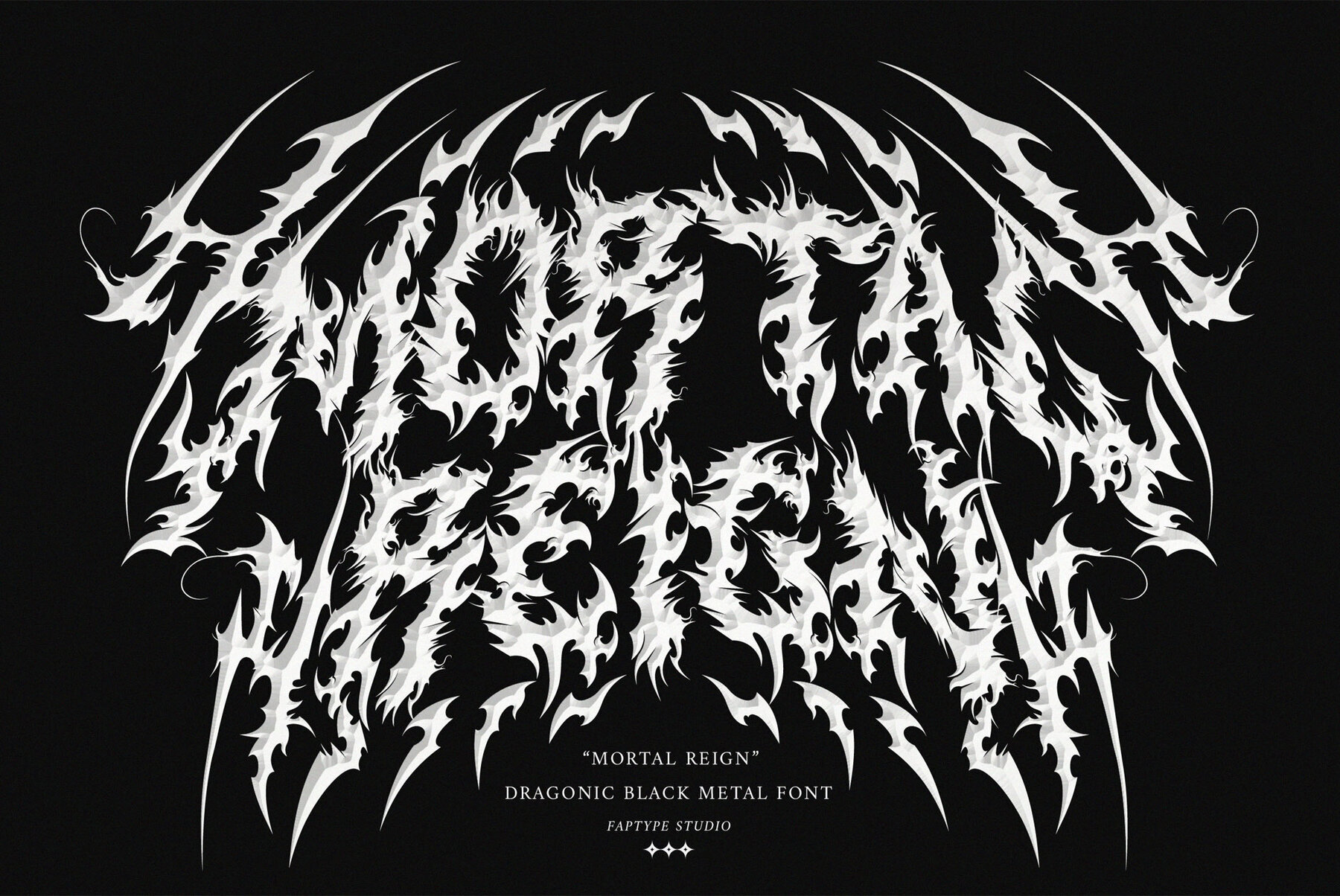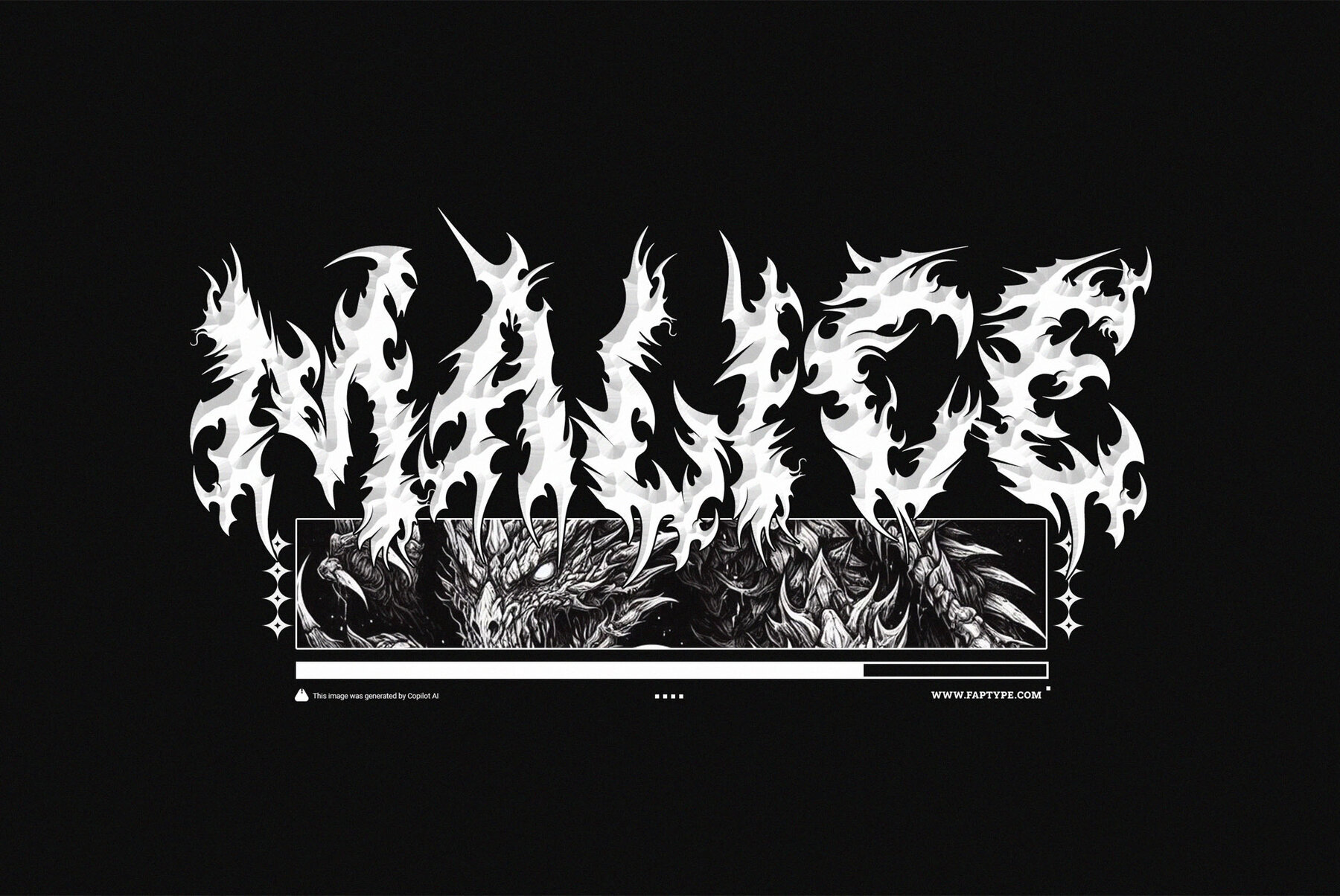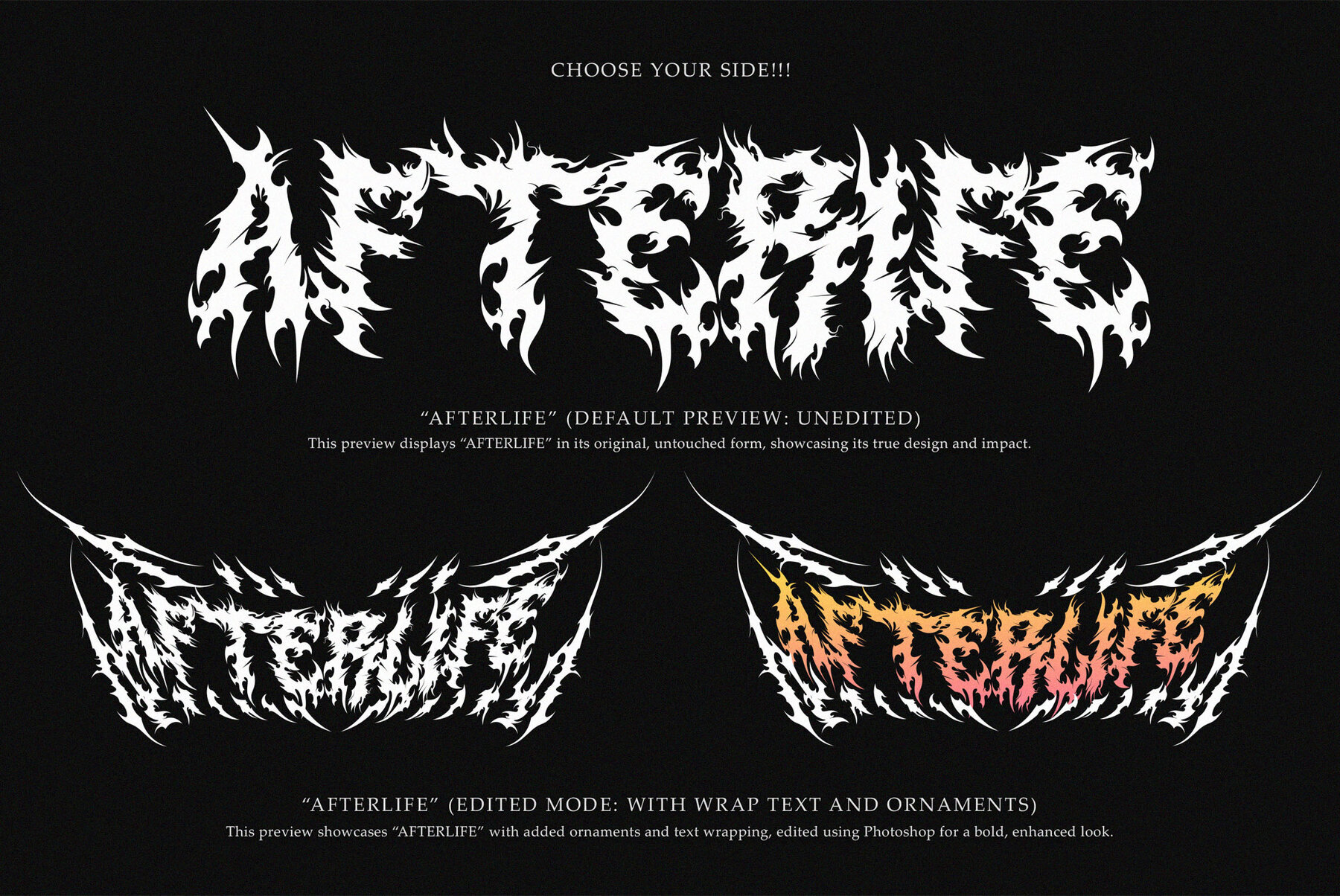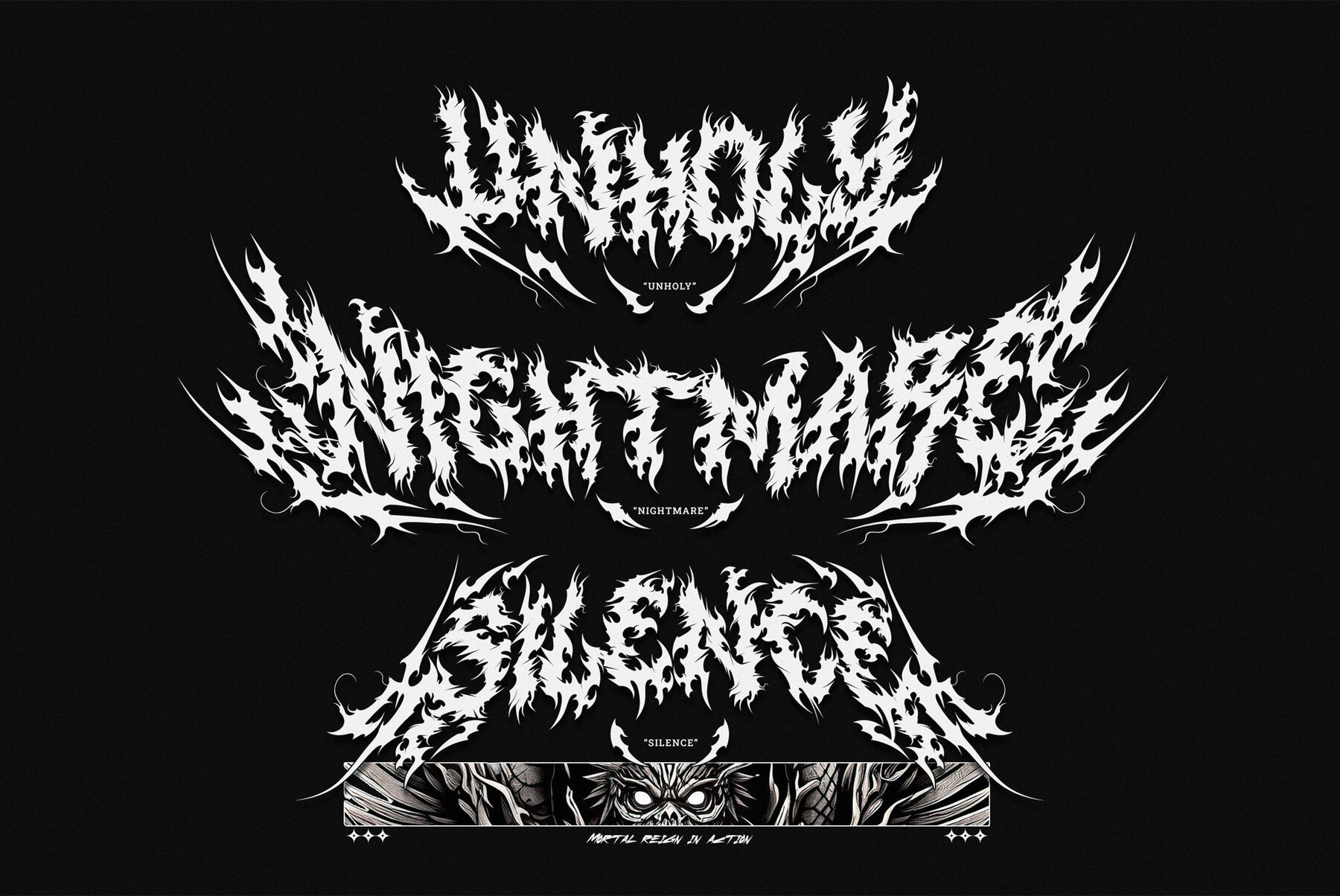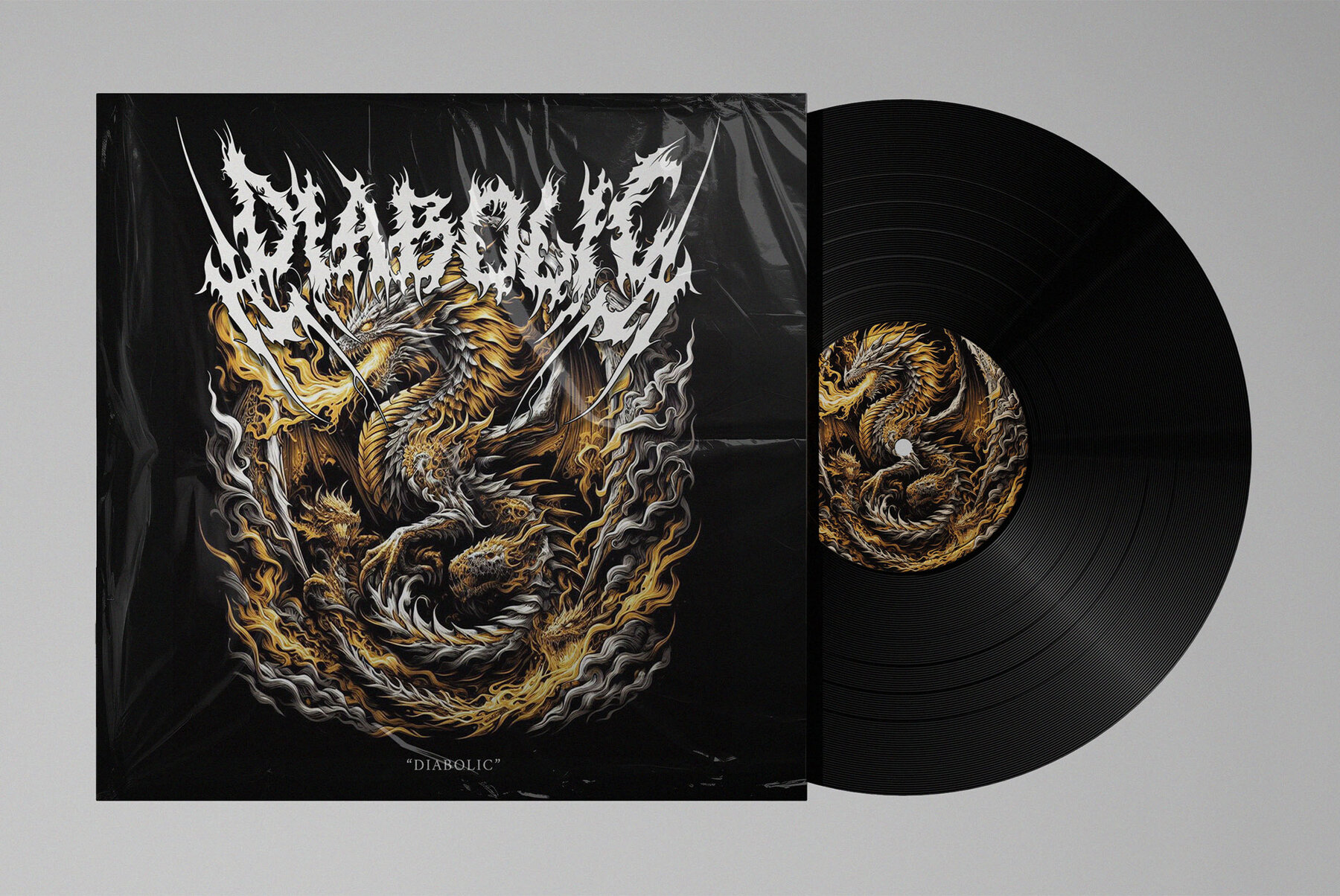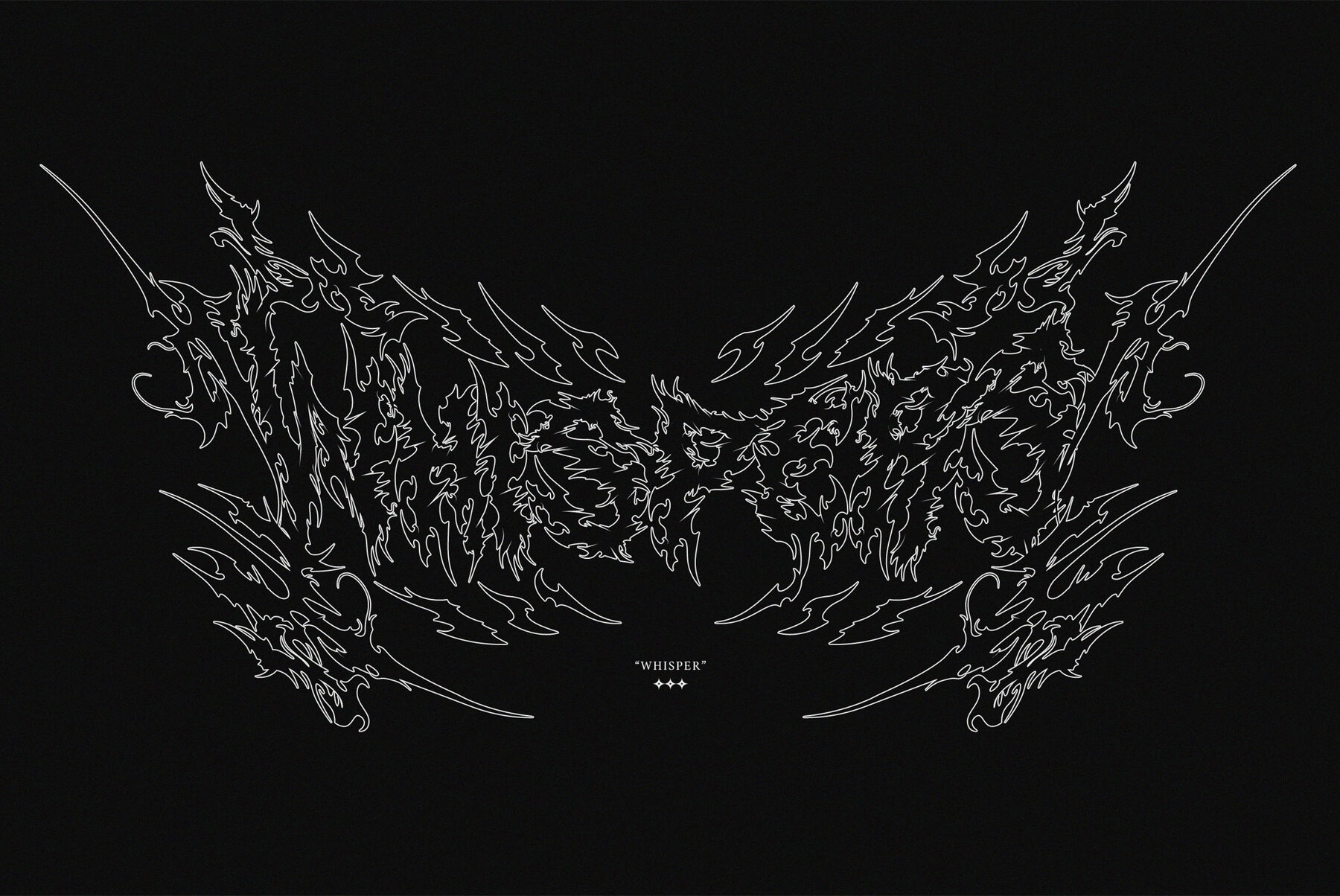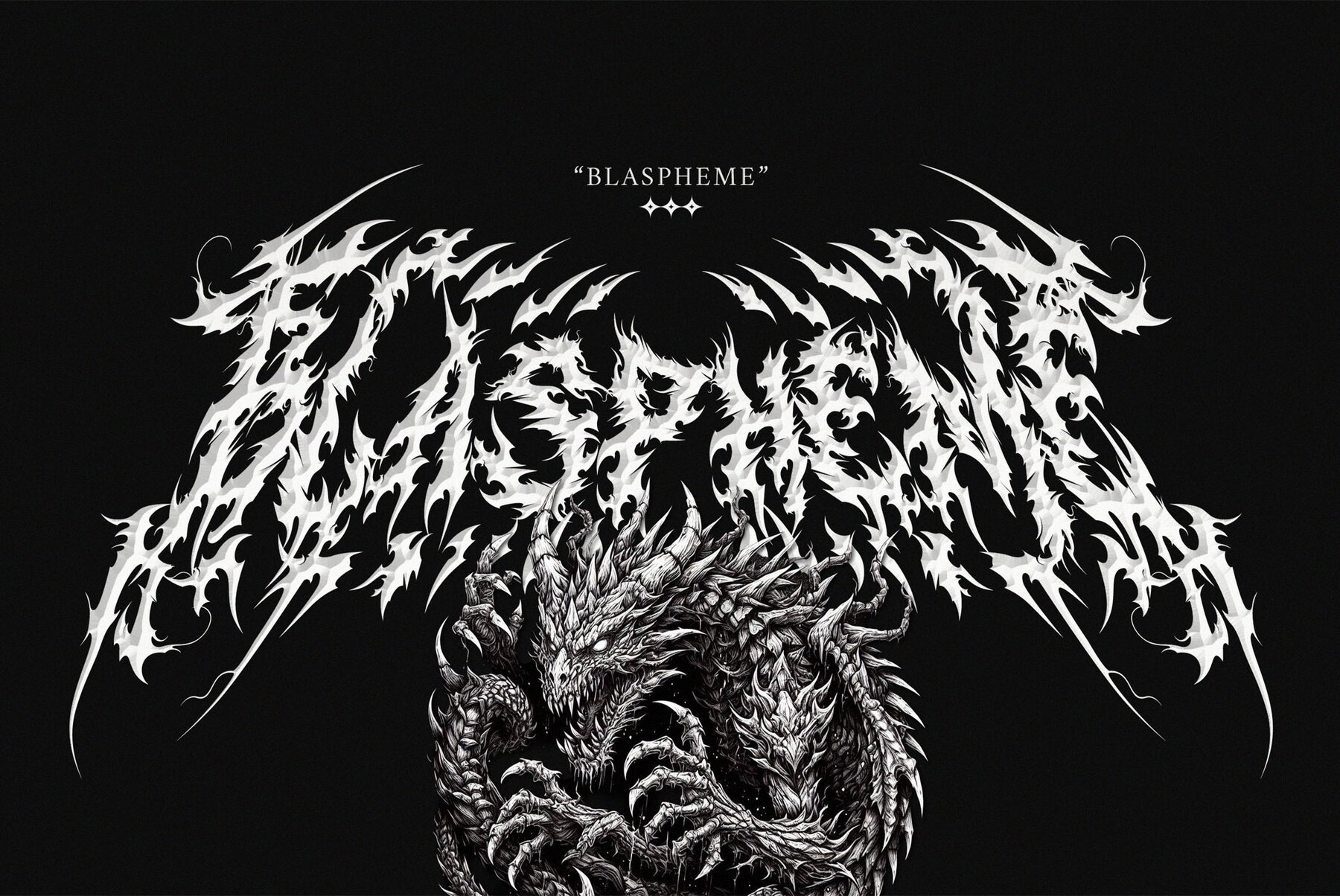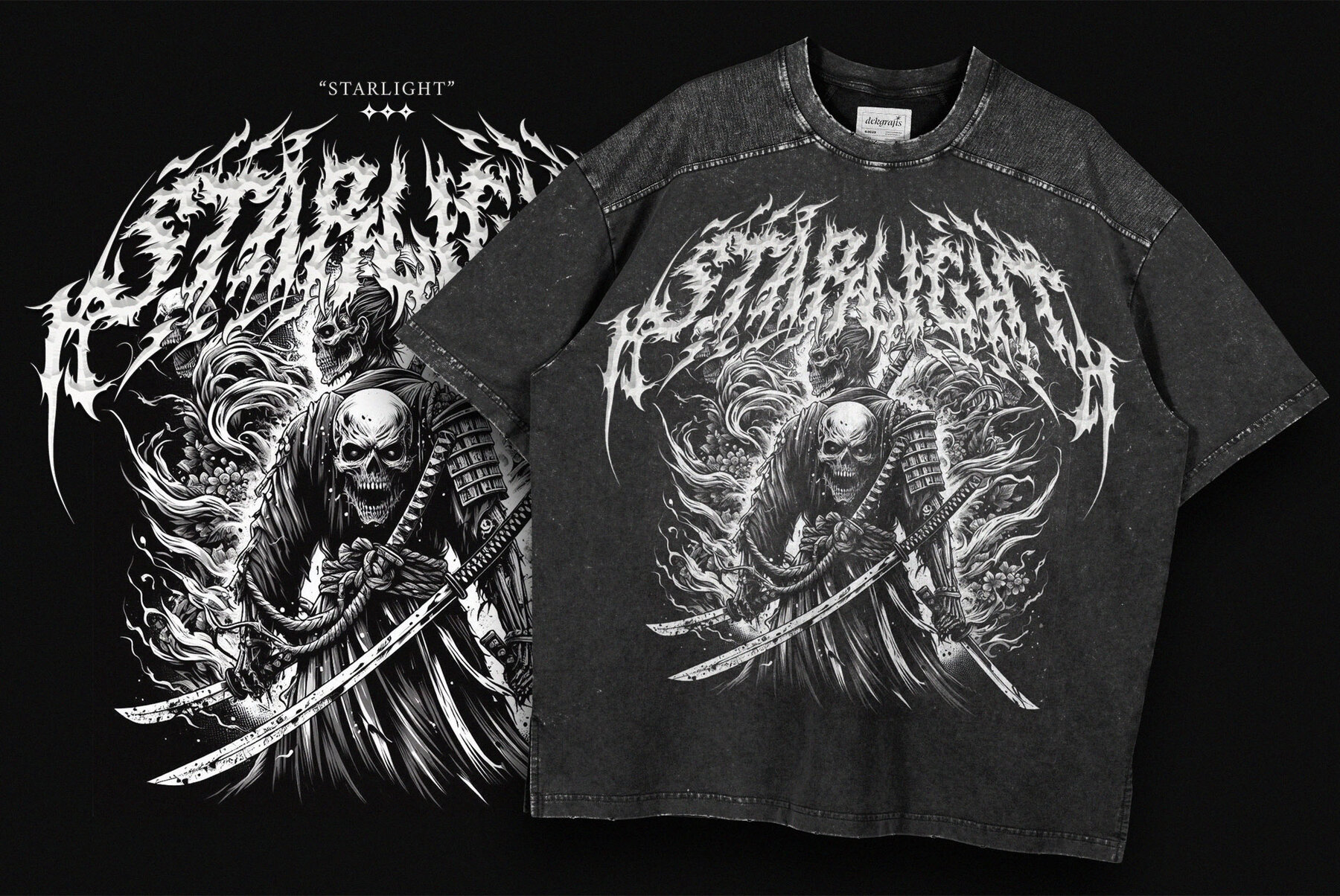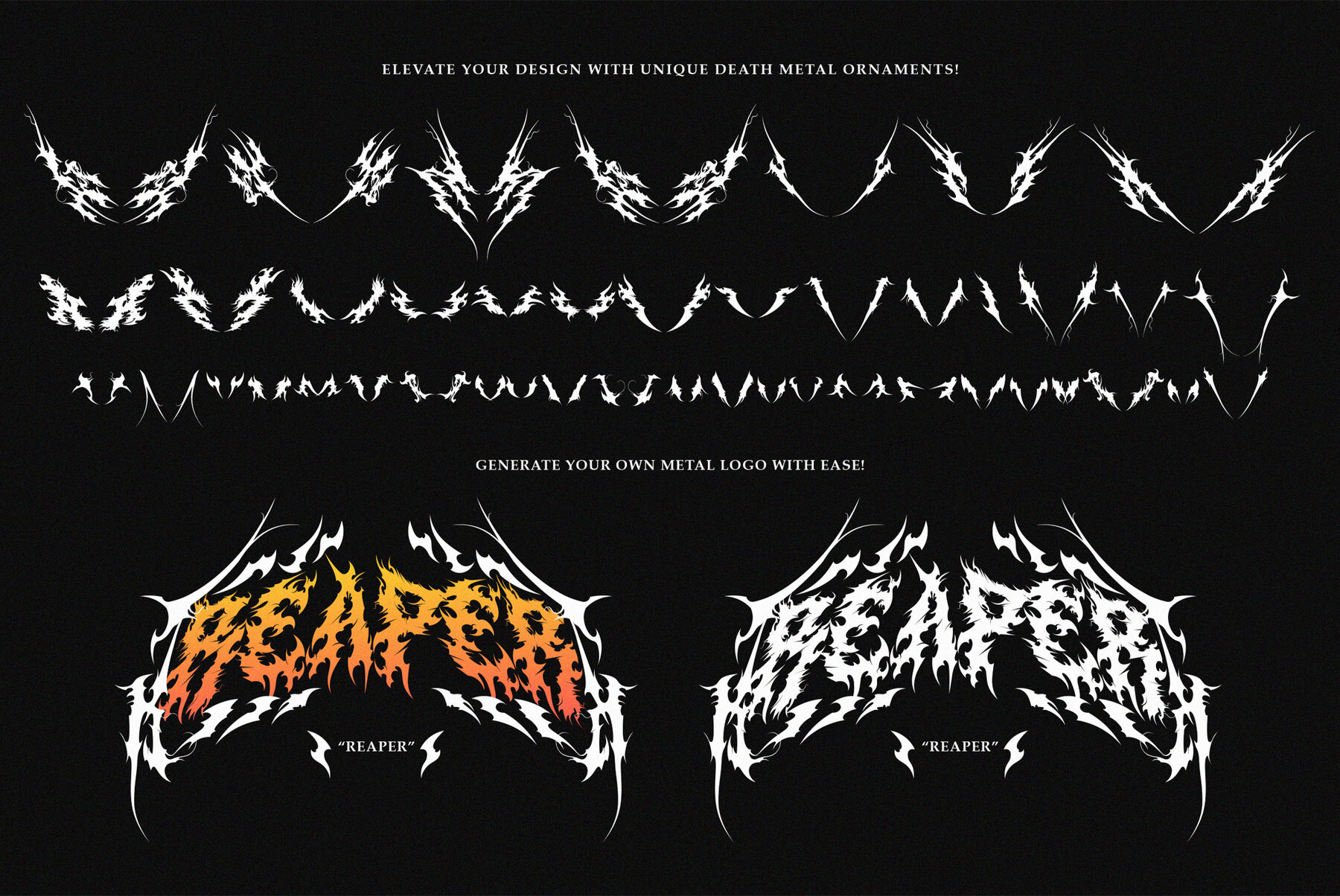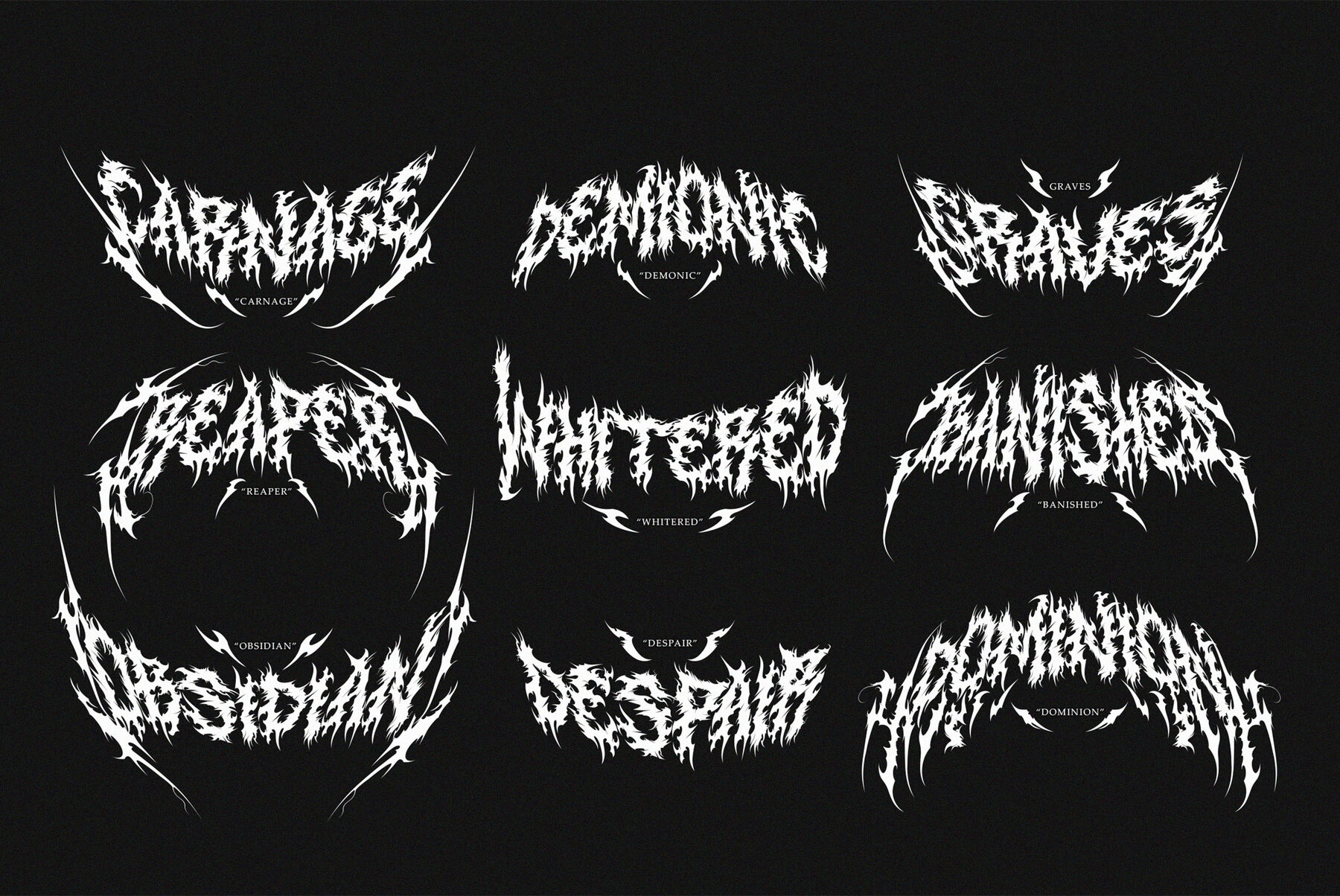
Mortal Reign Font
Mortal Reign Regular
Mortal Reign Black Metal Font captures the spirit of raw energy, appealing to designers who seek intensity and power. Each letter in this textured typeface resonates with the aesthetics of black metal, embodying sharpness and aggression. This font is a perfect fit for creating eye-catching headlines and graphics that express a fierce and untamed theme. Mortal Reign stands as a statement piece for projects that require a commanding visual presence. Its chaotic yet refined design makes it suitable for logos and stunning display elements, ensuring your work commands attention. From the underground music scene to iconic imagery, this font breathes life into any graphic design endeavor.Mortal Reign: Ferocious Black Metal Typeface
Perfect for Extreme Artwork
Mortal Reign Features